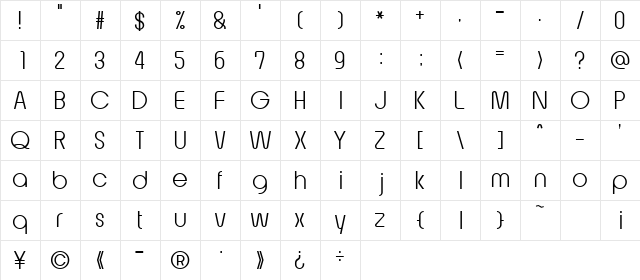
176MKSD AL
Design Context for 176MKSD Typeface
176MKSD takes a measured approach to typography — its balanced proportions and neutral character make it a reliable workhorse for both digital and print work.
Pro Tip: Use 176MKSD in both headline and body roles to test its range before committing to a single application.